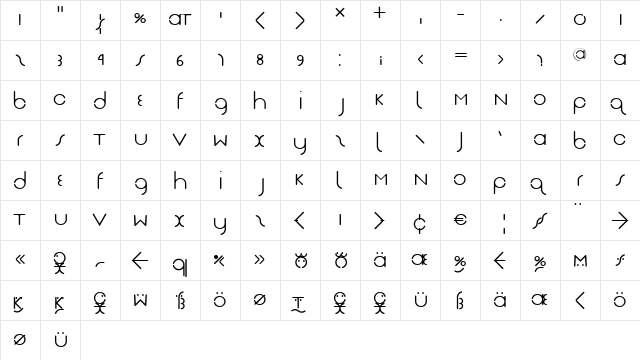
NearJanTschich Regular
Design Context for NearJanTschich Typeface
NearJanTschich offers clean, dependable letterforms without strong stylistic allegiance, making it a practical choice for designers who need flexibility.